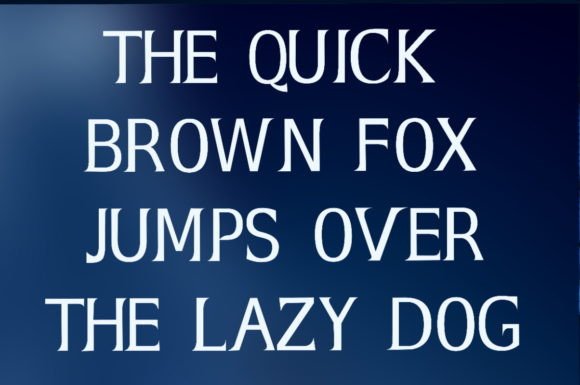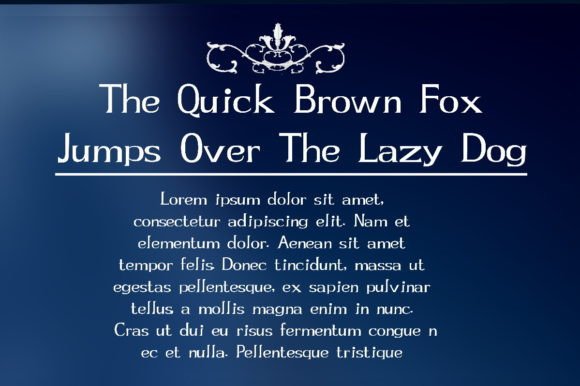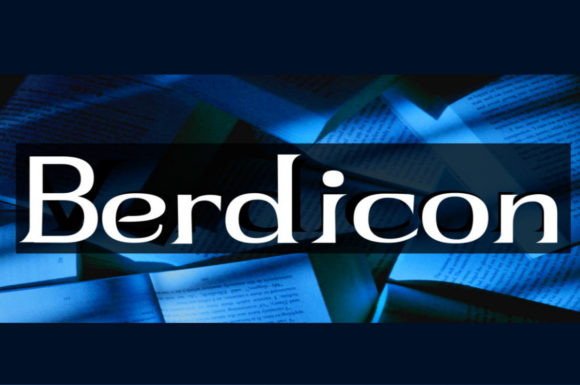
Berdicon Font: The Ultimate Display Font for Bold Statements
In the world of typography, a font can make or break the visual impact of a design. For designers and crafters looking to make a bold statement, Berdicon Font is the perfect choice. This assertive display font is designed to grab attention and leave a lasting impression. In this article, we’ll dive into the features and benefits of Berdicon Font, and explore its endless possibilities for creative projects.
What is Berdicon Font?
Berdicon Font is a bold and assertive display font that is perfect for use on business cards, logos, quotes, cards, social media, flyers, posters, and so much more. Its unique design makes it stand out from other fonts, giving it a distinctive edge that’s sure to capture the attention of your audience. Whether you’re a designer, craftsperson, or simply someone who appreciates great typography, Berdicon Font is a must-have in your font collection.
Key Features of Berdicon Font
- Bold and Assertive: Berdicon Font is designed to make a statement. Its bold and assertive design ensures that your message is heard loud and clear.
- Versatile: Berdicon Font is perfect for a wide range of creative projects, from business cards and logos to social media graphics and posters.
- Easy to Read: Despite its bold design, Berdicon Font is easy to read, making it perfect for use on a variety of materials, including flyers, brochures, and posters.
- Unique Design: Berdicon Font has a unique design that sets it apart from other fonts. Its distinctive edge makes it a great choice for designers and crafters looking to add a personal touch to their work.
Benefits of Using Berdicon Font
So why choose Berdicon Font for your creative projects? Here are just a few benefits of using this amazing display font:
- Grabs Attention: Berdicon Font is designed to grab attention and leave a lasting impression. Its bold and assertive design ensures that your message is heard loud and clear.
- Enhances Brand Identity: Berdicon Font can help enhance your brand identity by giving your designs a unique and distinctive edge.
- Perfect for Creative Projects: Berdicon Font is perfect for a wide range of creative projects, from business cards and logos to social media graphics and posters.
- Easy to Use: Berdicon Font is easy to use and can be easily integrated into your designs, making it perfect for designers and crafters of all skill levels.
Endless Possibilities for Creative Projects
Berdicon Font is perfect for a wide range of creative projects, including:
- Business Cards: Use Berdicon Font to create bold and assertive business cards that make a lasting impression.
- Logos: Berdicon Font is perfect for use on logos, giving your brand a unique and distinctive edge.
- Social Media Graphics: Use Berdicon Font to create eye-catching social media graphics that grab attention and drive engagement.
- Flyers and Posters: Berdicon Font is perfect for use on flyers and posters, making your message loud and clear.
In conclusion, Berdicon Font is a bold and assertive display font that is perfect for designers and crafters looking to make a statement. Its unique design, versatility, and ease of use make it a must-have in any font collection. Whether you’re creating business cards, logos, social media graphics, or posters, Berdicon Font is the perfect choice. So why wait? Download Berdicon Font today and start creating bold and assertive designs that leave a lasting impression.